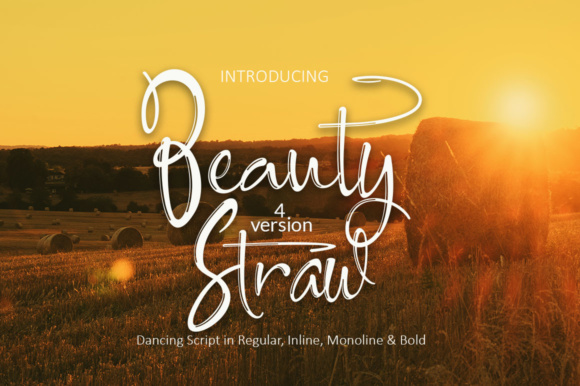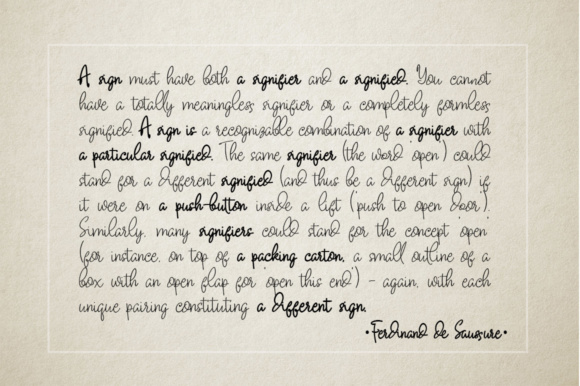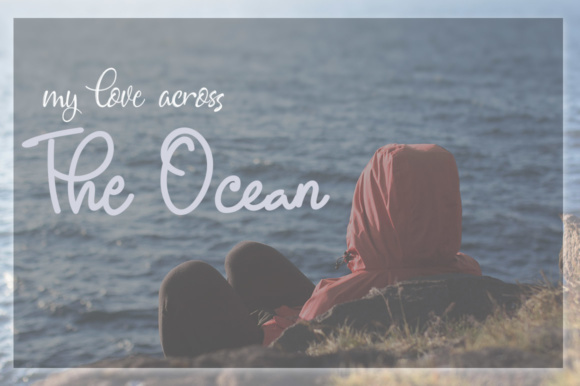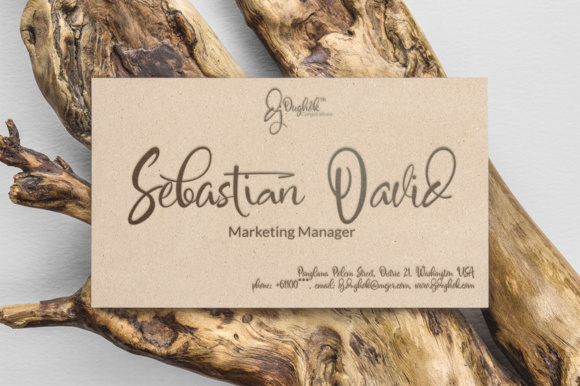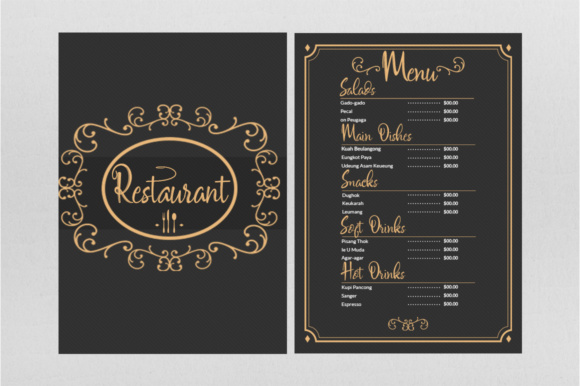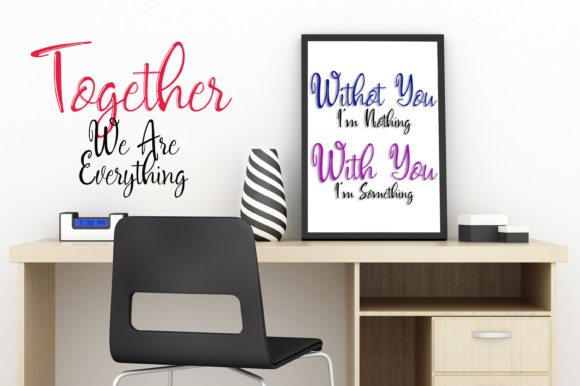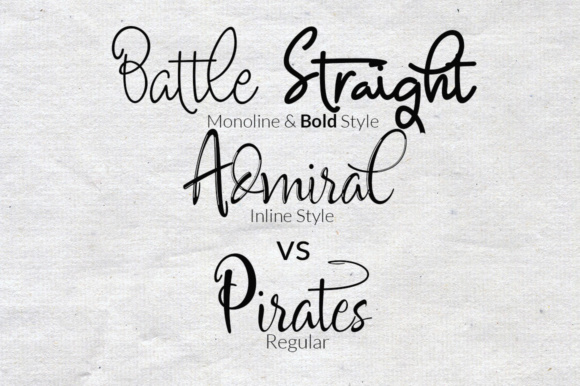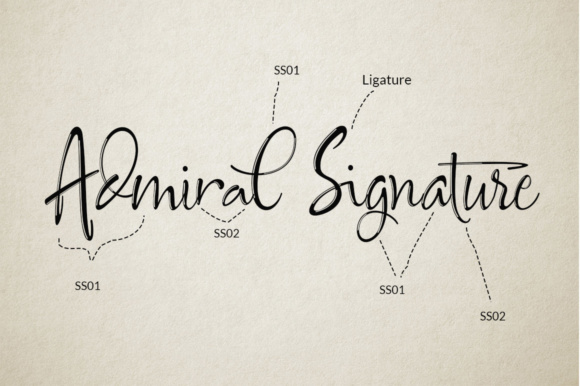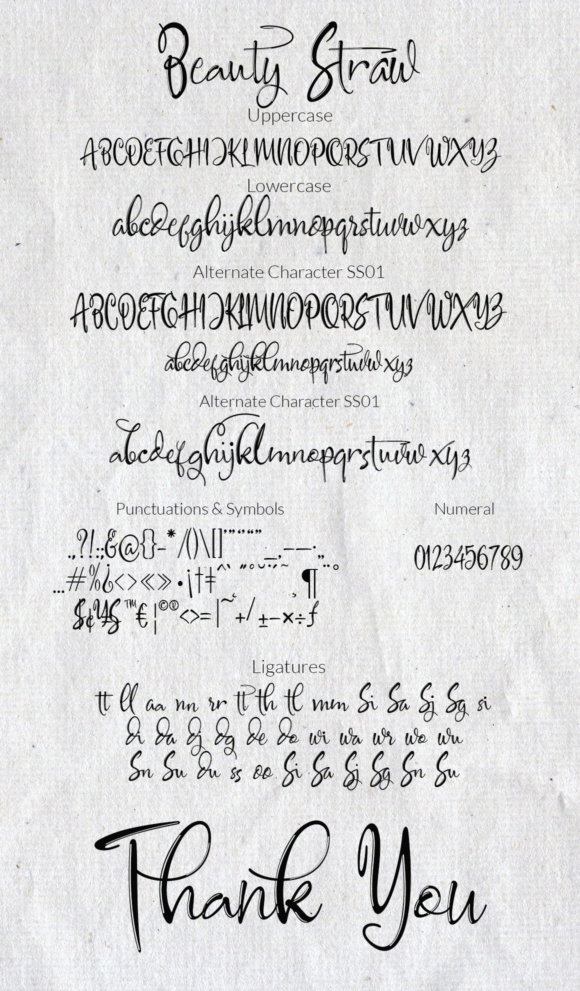
Beauty Straw Font
About Beauty Straw Font
Beauty Straw is a highly textured and gorgeous calligraphy font, ideal for use in a wide range of modern designs. This font looks great in romantic invitationals or social media posts, and excels as a headline to your works.